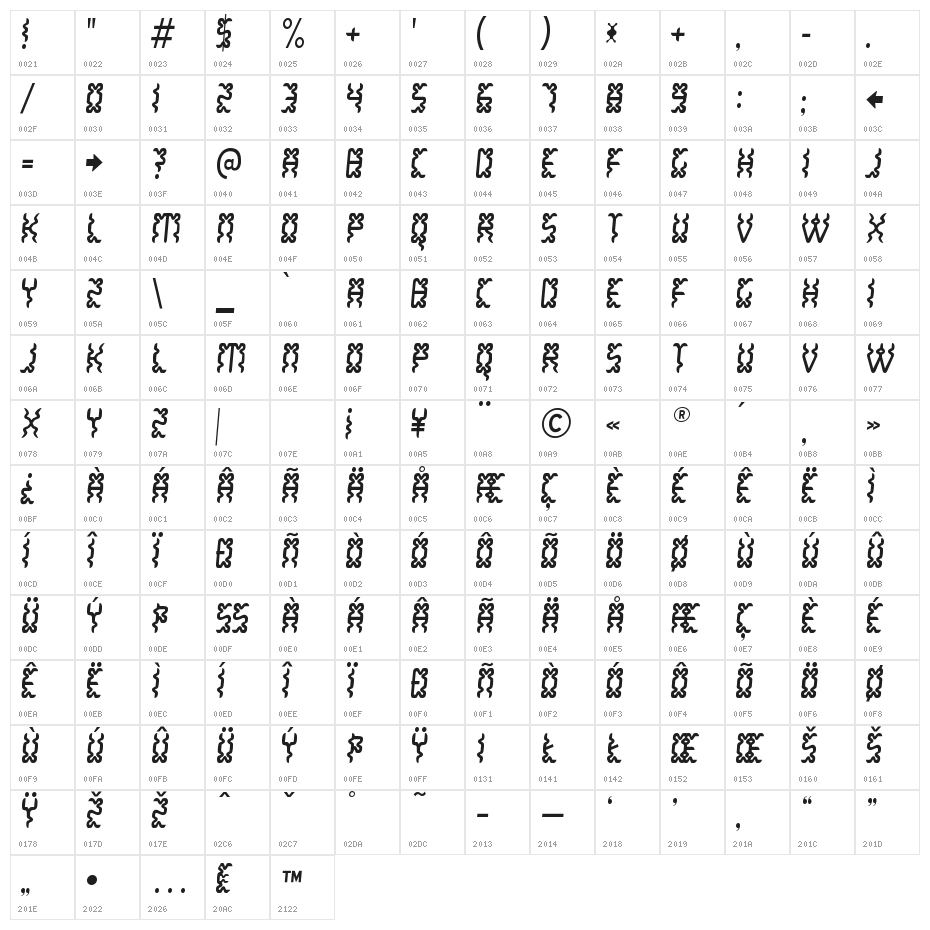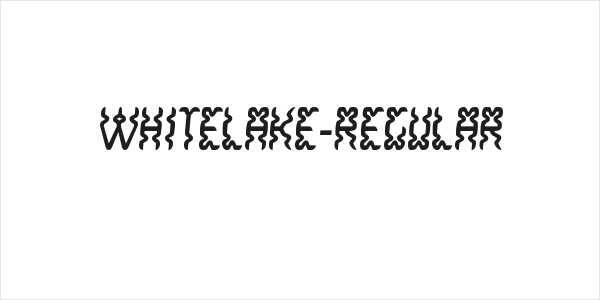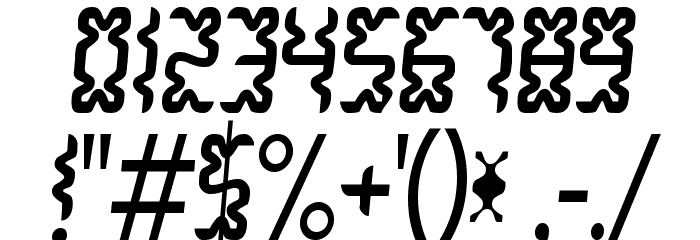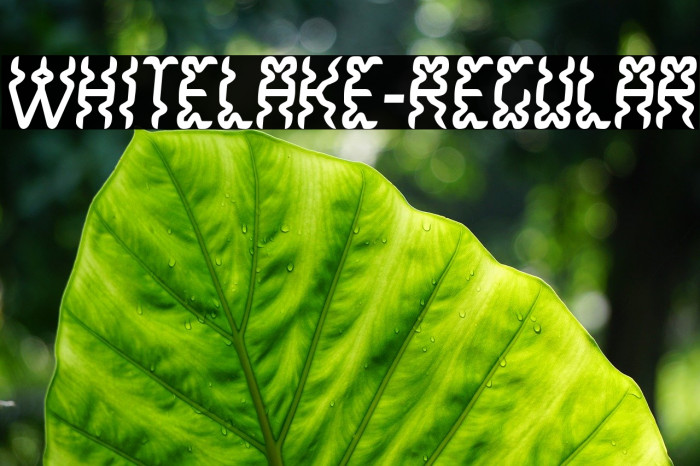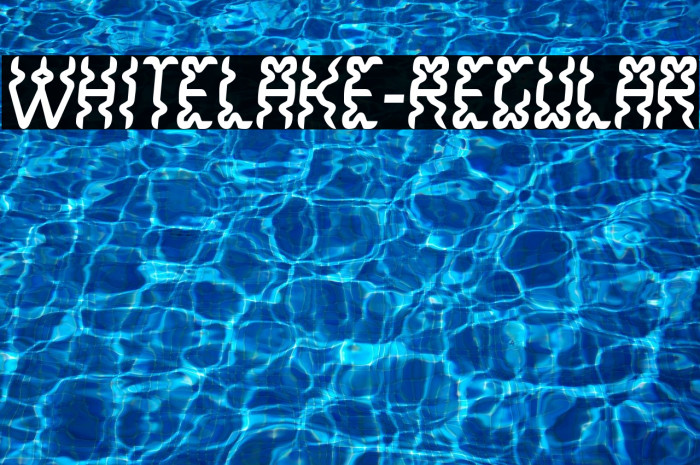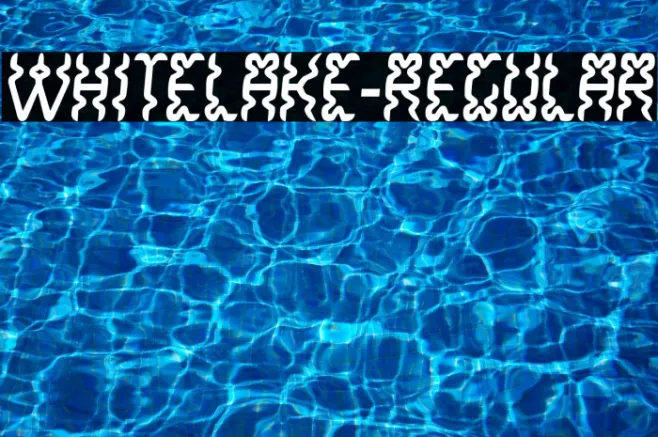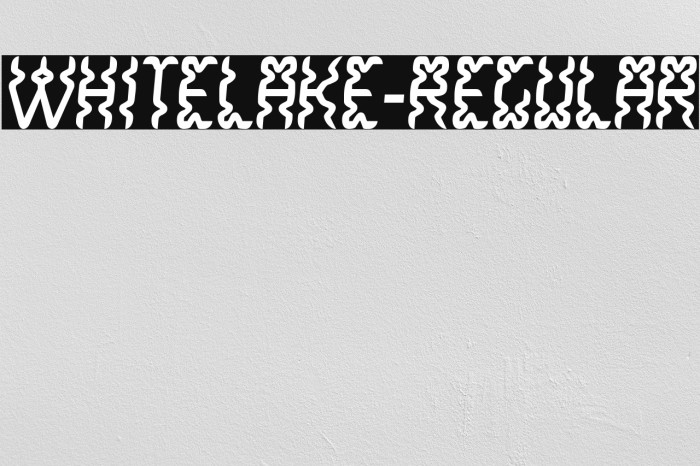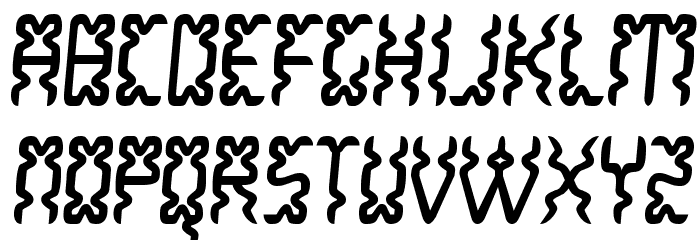
WhiteLake-Regular Font
WhiteLake-Regular Description
This font features a unique and decorative style, characterized by its bold, intricate patterns that form each letter and number. The design incorporates a series of loops and curves, creating a visually striking appearance. The uppercase and lowercase letters maintain a consistent style, with each character exhibiting a playful yet structured form. The numbers and special characters follow the same design principles, ensuring uniformity across the font. This font's distinctive look makes it ideal for creative projects that require a touch of whimsy and artistic flair.
| Proposed Projects | Ideal for posters, logos, branding, and artistic projects requiring a unique and eye-catching typeface. |